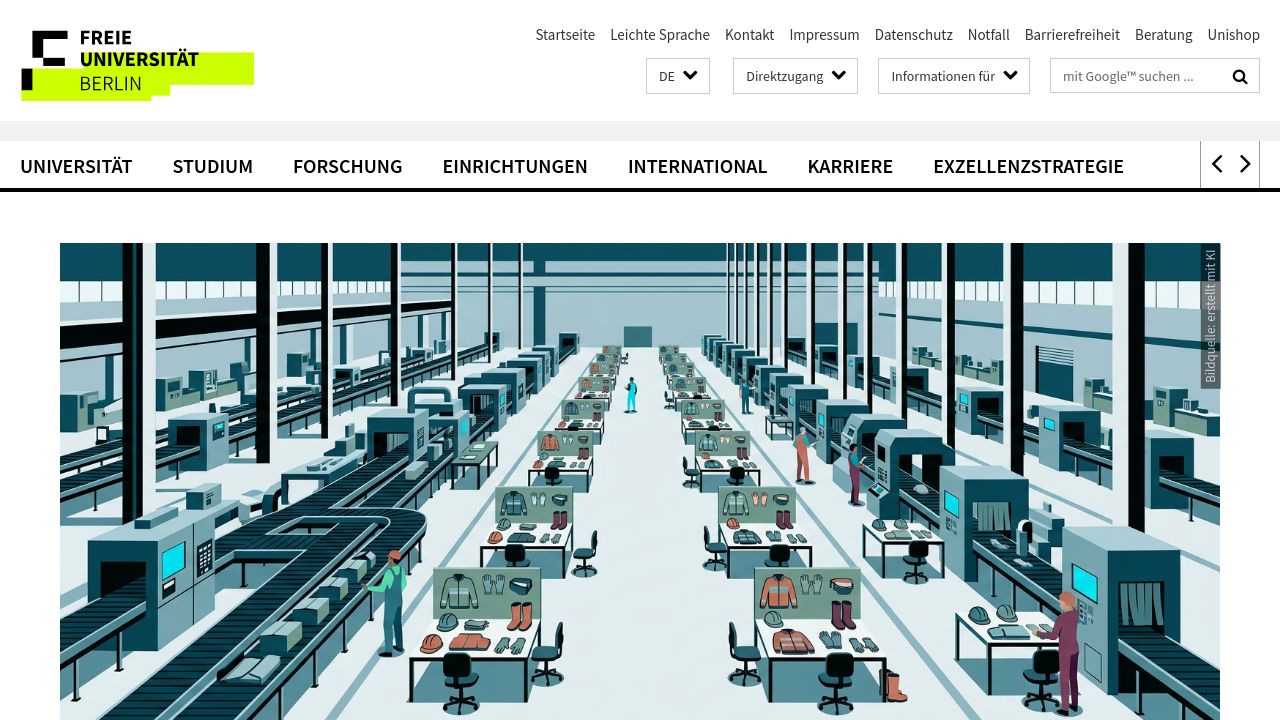
What fonts does Fu-berlin use?
Freie Universität Berlin, represented by fu-berlin.de, utilizes a diverse range of fonts to convey its academic rigor and international presence. The primary fonts include Arial and Open Sans, which enhance readability and accessibility for students and faculty. Custom fonts like Poppins and Roboto Slab contribute to a modern, approachable aesthetic, while Merriweather and Bitter provide a classic touch, reflecting the institution's commitment to tradition and innovation in higher education.
What fonts are used on fu-berlin.de?
fu-berlin.de primarily uses Arial and Open Sans, along with several custom fonts such as Poppins, Roboto Slab, and Merriweather.
How do the fonts on fu-berlin.de compare to alternatives?
Fonts like Arial and Open Sans are widely regarded for their clarity and versatility, making them suitable alternatives to other sans-serif fonts like Helvetica.
What styles and weights are available for fu-berlin.de fonts?
Most fonts used on fu-berlin.de, including Merriweather and Poppins, are available in regular weights (400), while Source Sans 3 VF offers variable weights from 200 to 900.